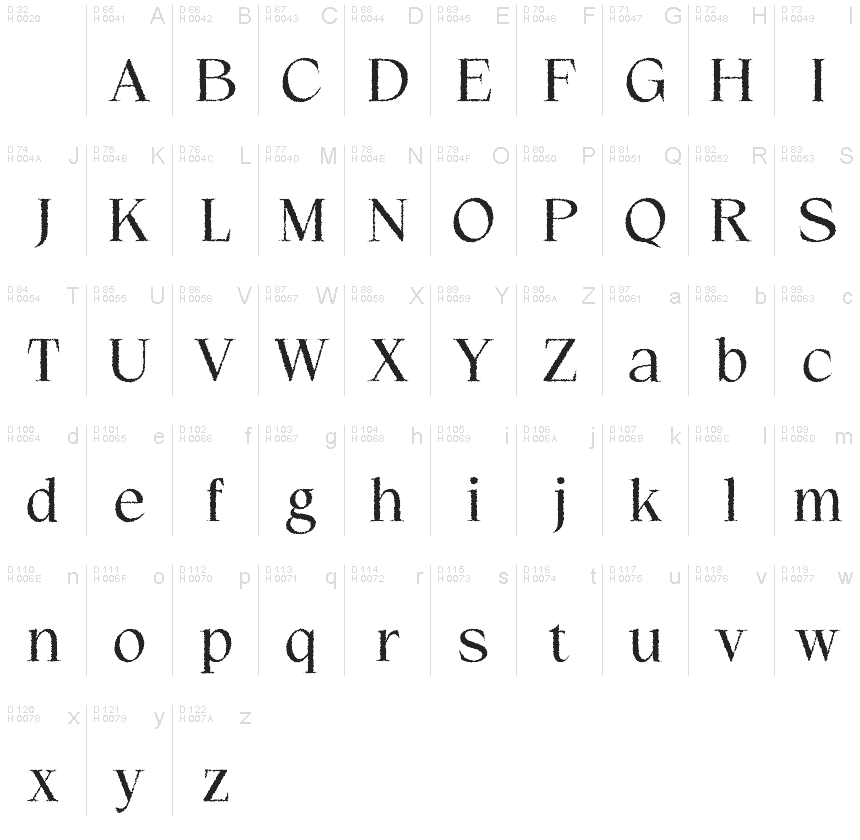
Wikolia Rough Demo Regular
Wikolia Rough font by Craft Supply Co features eroded, rough edges that create a visually appealing artistic flair with a vintage feel. This display font focuses on distressing its serif style to an ideal degree while still maintaining legibility, unlike some fancy scripts known for their incomprehensibility.
The free display font’s distressed and textured character is perfect for posters, flyers, headers, packaging designs, product cards, social media content and covers. Add it to titles of catalogs or magazines or use it in artistic projects such as tattoos and stickers.